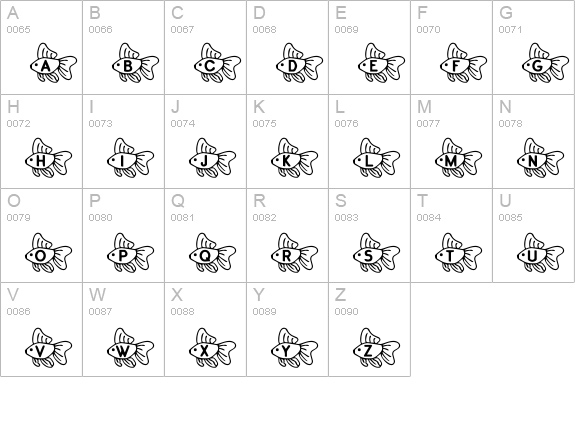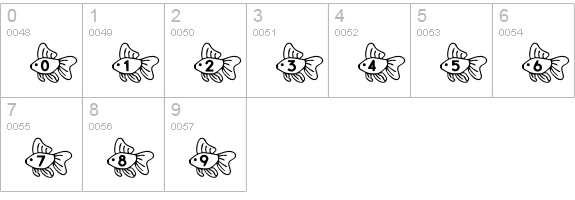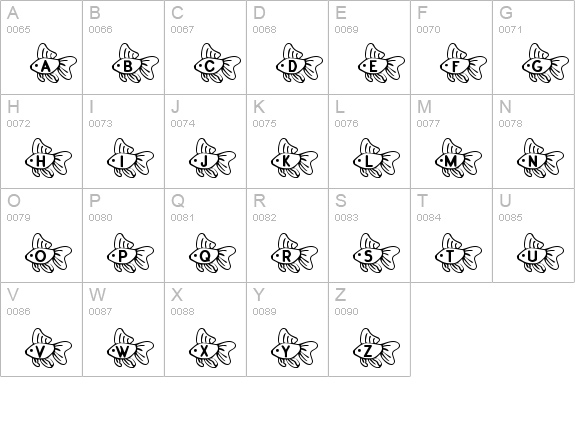
RMFish2 Font Details
Introducing RMFish2 font, a whimsical and playful typeface that is sure to make your designs stand out. This unique font features a charming blend of rounded edges and quirky details, giving it a fun and lighthearted feel. Perfect for adding a touch of personality to your projects, RMFish2 is versatile and easy to read, making it ideal for a wide range of design applications. Best of all, RMFish2 is available for free download at FontsMarket.com. So why wait? Add this delightful font to your collection today and let your creativity soar!